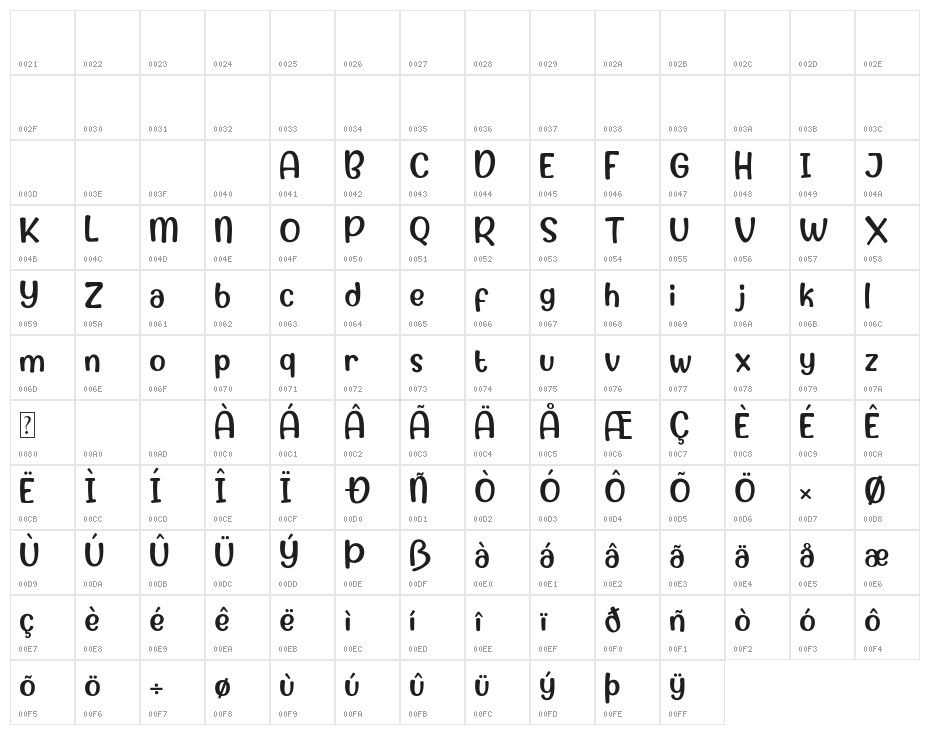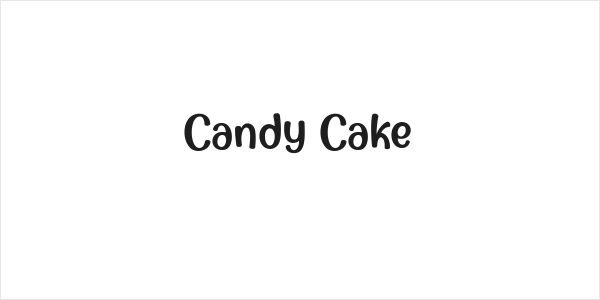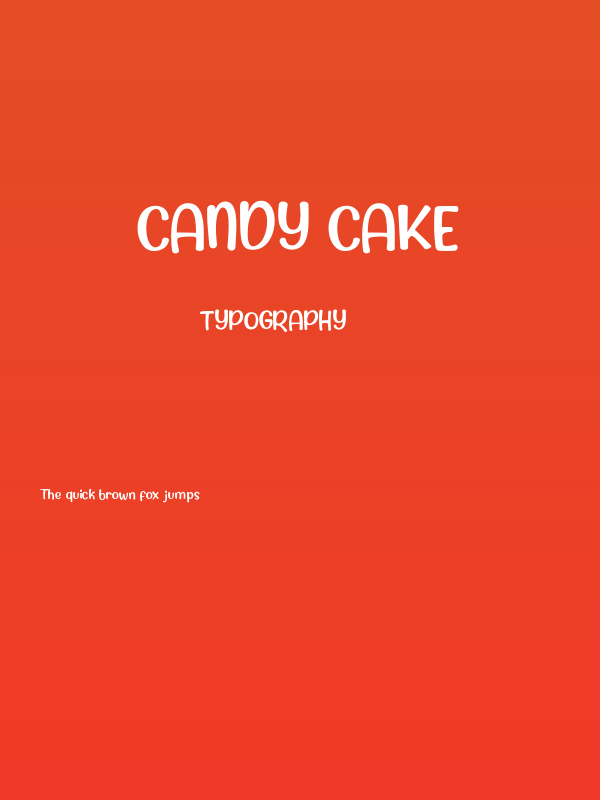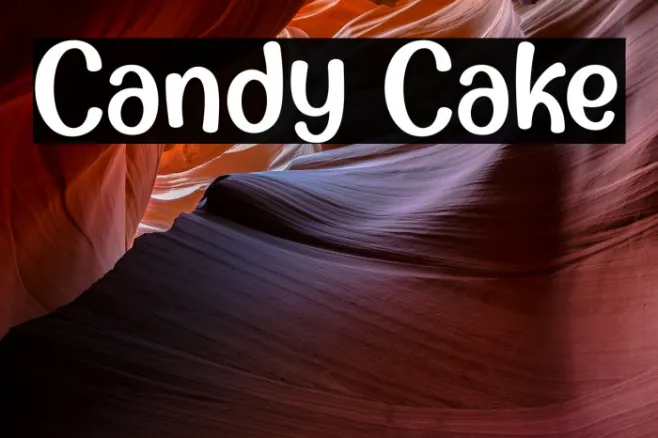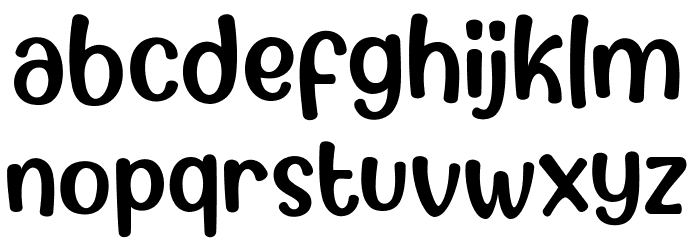
Candy Cake Font
Candy Cake Description
This playful and whimsical font features rounded, bubbly characters that exude a sense of fun and creativity. The letters are bold and slightly irregular, giving them a hand-drawn appearance that adds a personal touch. The uppercase and lowercase letters maintain a consistent style, with smooth curves and a friendly demeanor. The font is highly legible, making it suitable for a variety of applications where a lighthearted and approachable feel is desired. Its unique style makes it stand out, while still being versatile enough for different design needs.